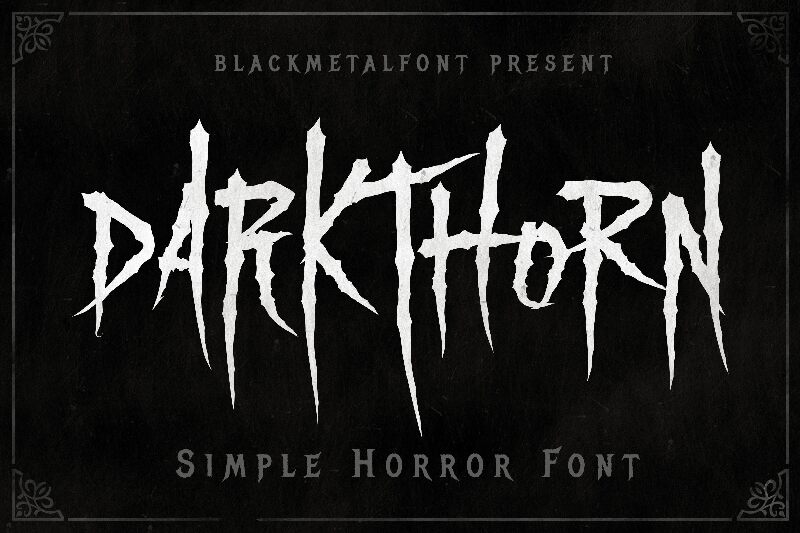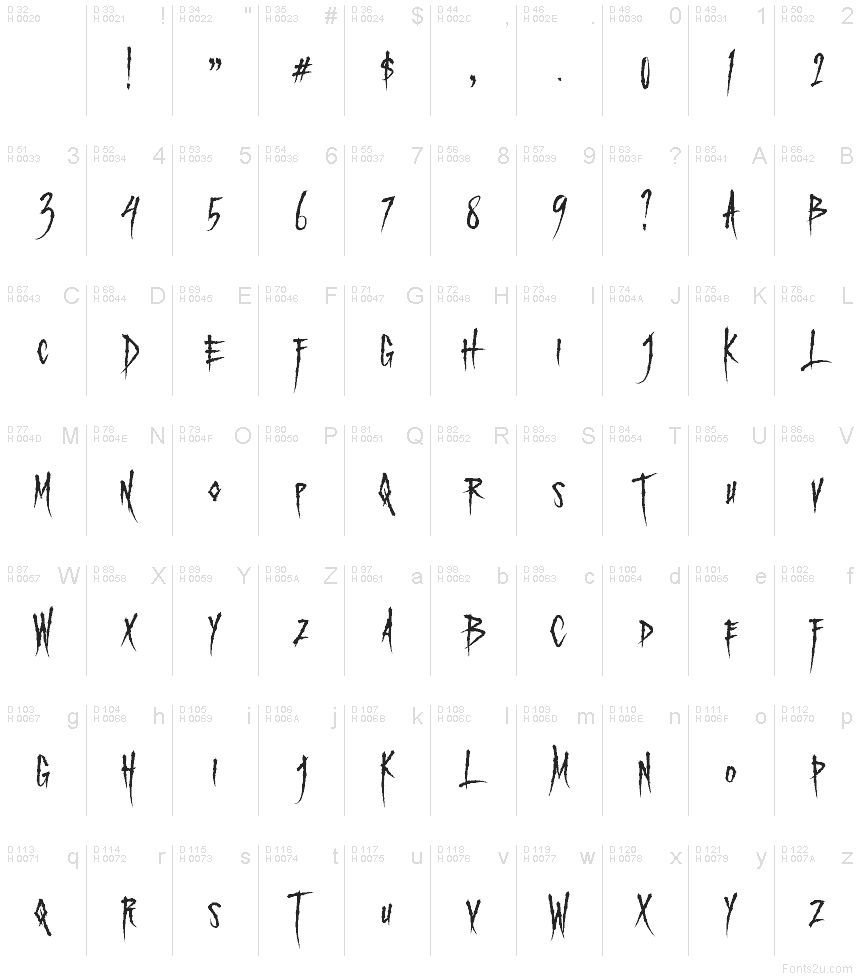
Dark Thorn
Dark Thorn font by Lettersiro Studio is a free scary display font. Its letters look clawed from bark-jagged spines, splintered stems, and inky, torn edges that taper to needle points. The rhythm feels urgent and feral, so a single word hits like a scratch across glass, while the rough texture keeps it from reading too clean or cute.
Using Dark Thorn, headlines snap to attention on horror posters, haunted house flyers, Halloween merch, game titles, metal band logos, and thriller book covers. This free font shines at large sizes with a bit of extra tracking to show off the spikes. Pair it with a plain, narrow sans for captions to keep the chaos readable.